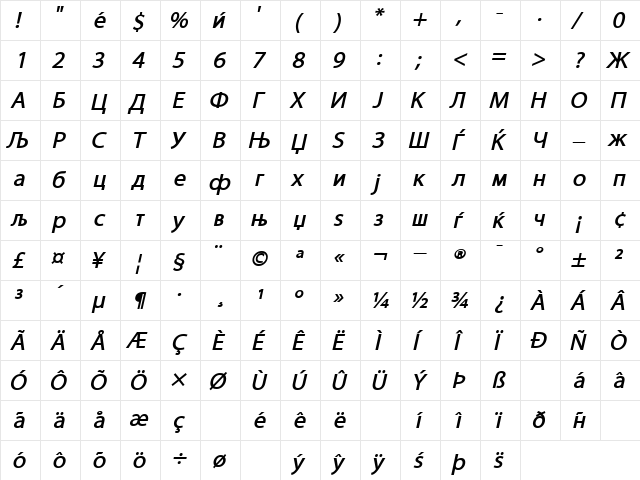
MMyriadRoman BoldItalic
Design Context for MMyriadRoman Typeface
MMyriadRoman offers clean, dependable letterforms without strong stylistic allegiance, making it a practical choice for designers who need flexibility. Its italic angle brings a sense of urgency and motion to the letterforms. The heavy weight commands attention and anchors typographic hierarchies.
Pro Tip: Use MMyriadRoman for emphasis, pull quotes, and subheadings where its slanted energy can add rhythm to the layout.